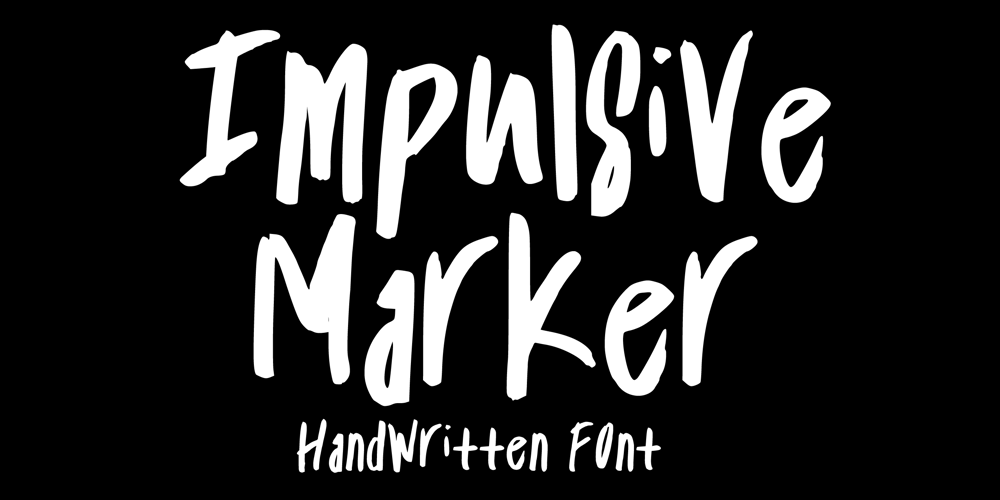
Impulsive Marker
Impulsive Marker font
Impulsive Marker Font Family was designed by Gabriel Valentinus and published by Mvmet. Impulsive Marker contains 1 styles and family package options. Impulsive Marker is a spontaneous and quick handwritten marker font, inspired by fun and fluid expressive energy of mankind. It will elevate a wide range of design projects to the highest level. You can use this font for many design ideas such as stickers, t-shirt designs, amazing logo designs, magazine or book covers, comics, cartoon drawings, and many more. This font will add a super cool touch to your designs!